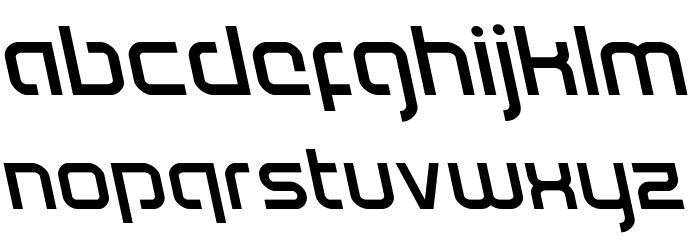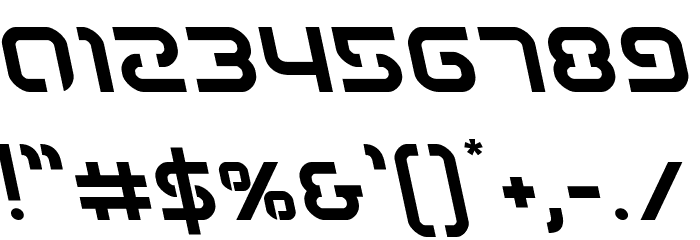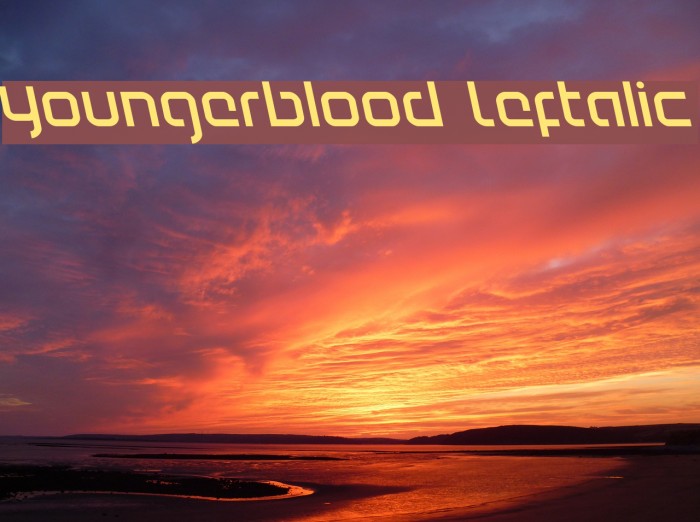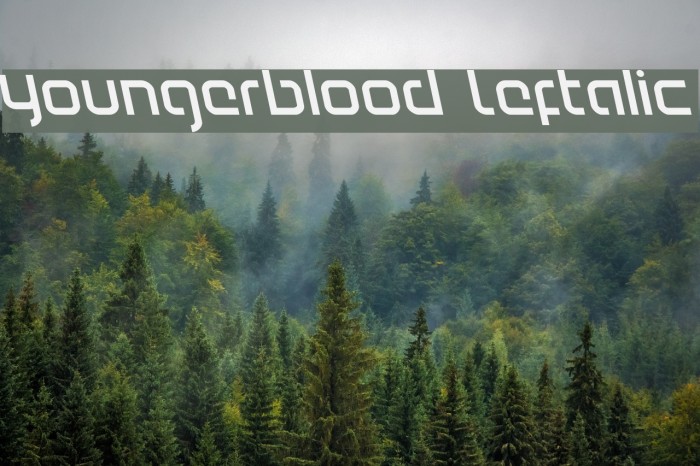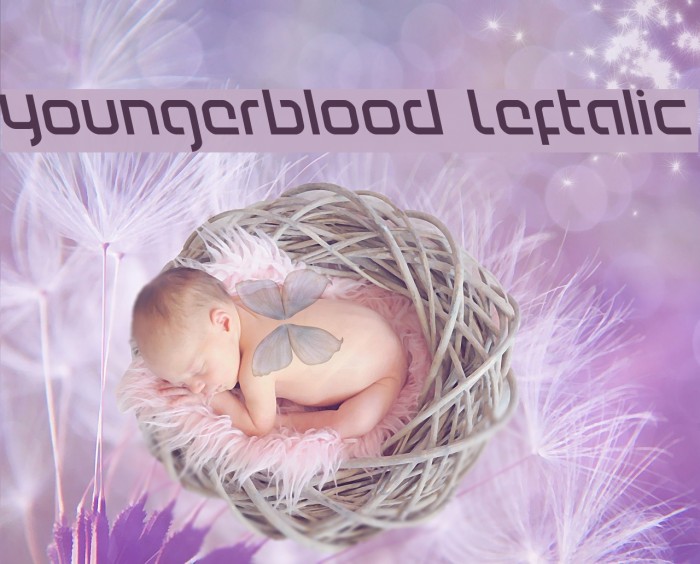
Youngerblood Leftalic Font
This font features a modern, geometric design with a distinct leftward slant, giving it a dynamic and forward-moving appearance. The characters are bold and have a consistent stroke width, contributing to a clean and uniform look. The angular shapes and sharp edges lend a futuristic and technical feel, making it suitable for contemporary designs. The uppercase and lowercase letters maintain a cohesive style, while the numerals and special characters are crafted to match the overall aesthetic. The font's unique style makes it stand out, offering a fresh take on traditional letterforms.
A modern, geometric font with a leftward slant and bold, uniform strokes.
- Proposed Projects: Ideal for tech branding, futuristic posters, video game titles, and modern logos.
- Category: Modern
- Overall Style: Futuristic, Technical